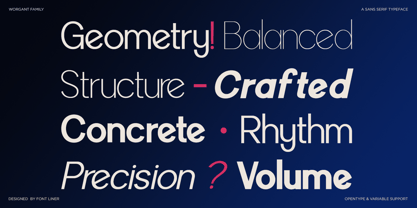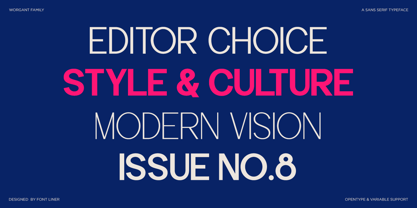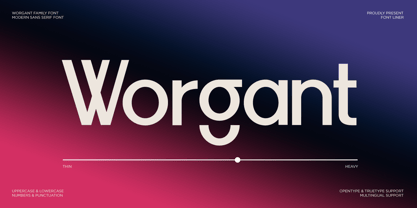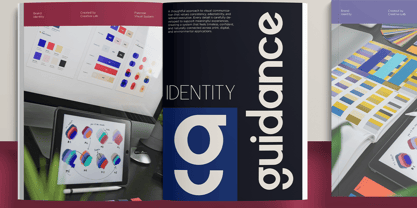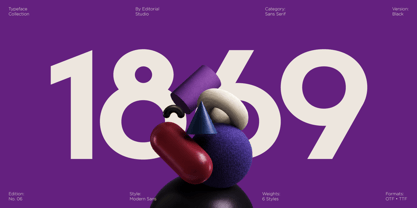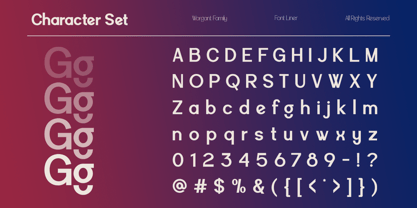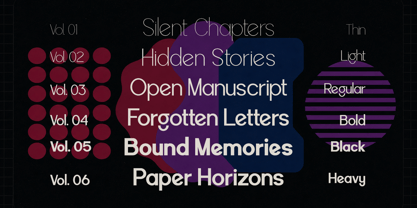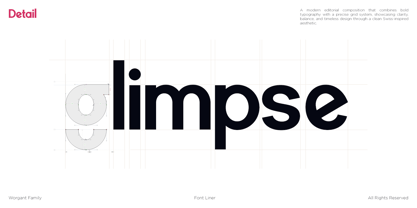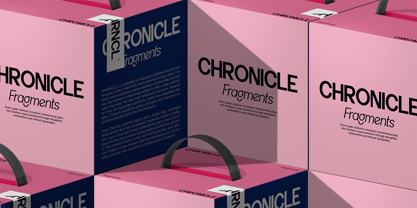
Worgant
by Font Liner
Worgant is a modern geometric sans serif font family designed for creators who seek precision, flexibility, and timeless contemporary aesthetics. Built with clean geometry, balanced proportions, and smooth curves, Worgant delivers exceptional readability while maintaining a strong visual identity across both digital and print projects.
The family features 6 variable weight fonts, each available in Regular and Italic, providing maximum creative freedom for everything from elegant typography to bold display compositions. With seamless weight interpolation and consistent letterforms, Worgant is an excellent choice for designers looking for a versatile type system that adapts effortlessly to any project.
Whether you're designing branding, logos, editorial layouts, websites, UI/UX interfaces, mobile applications, corporate identities, packaging, advertising campaigns, presentations, social media graphics, or premium marketing materials, Worgant offers the flexibility and performance needed for professional design.